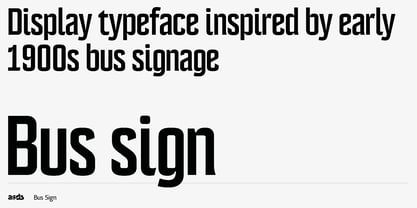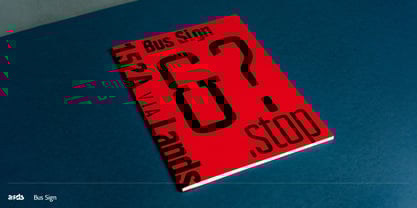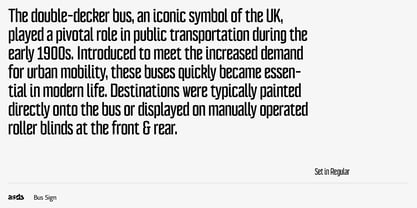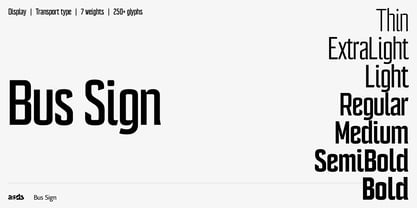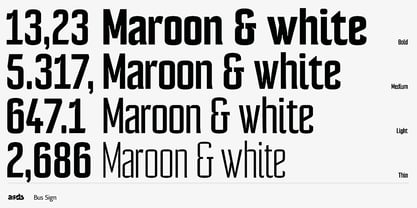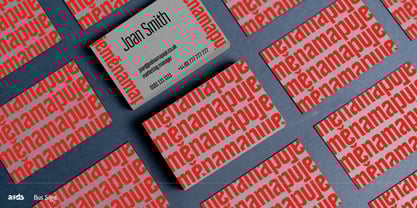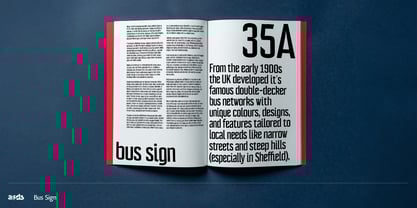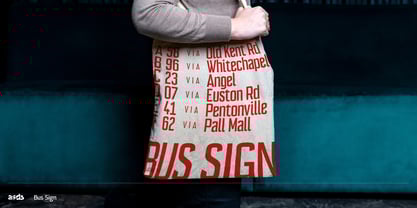
The Bus Sign Font Family was designed by Alister Shapley and published by Applied Systems Design Studio. Bus Sign contains 7 styles and family package options.
This tall and condensed sans serif typeface is inspired by the early 1900s UK transport signage. Drawing influence from the iconic bus signs of double-decker vehicles, which displayed routes for passengers, its design embodies the essence of historic signage while integrating modern detailing and color to create a robust typeface suited for contemporary applications. Ideal for large-format print and headlines, this display font features a high x-height that guarantees consistent legibility at various scales and weights. Bold and playful, this bus sign-inspired typeface blends a rich heritage of over a century with a modern flair, making it a perfect choice for branding, editorial use, and web design. Embrace its unique character to elevate your projects with a font that balances tradition with a contemporary aesthetic.
Bus Sign